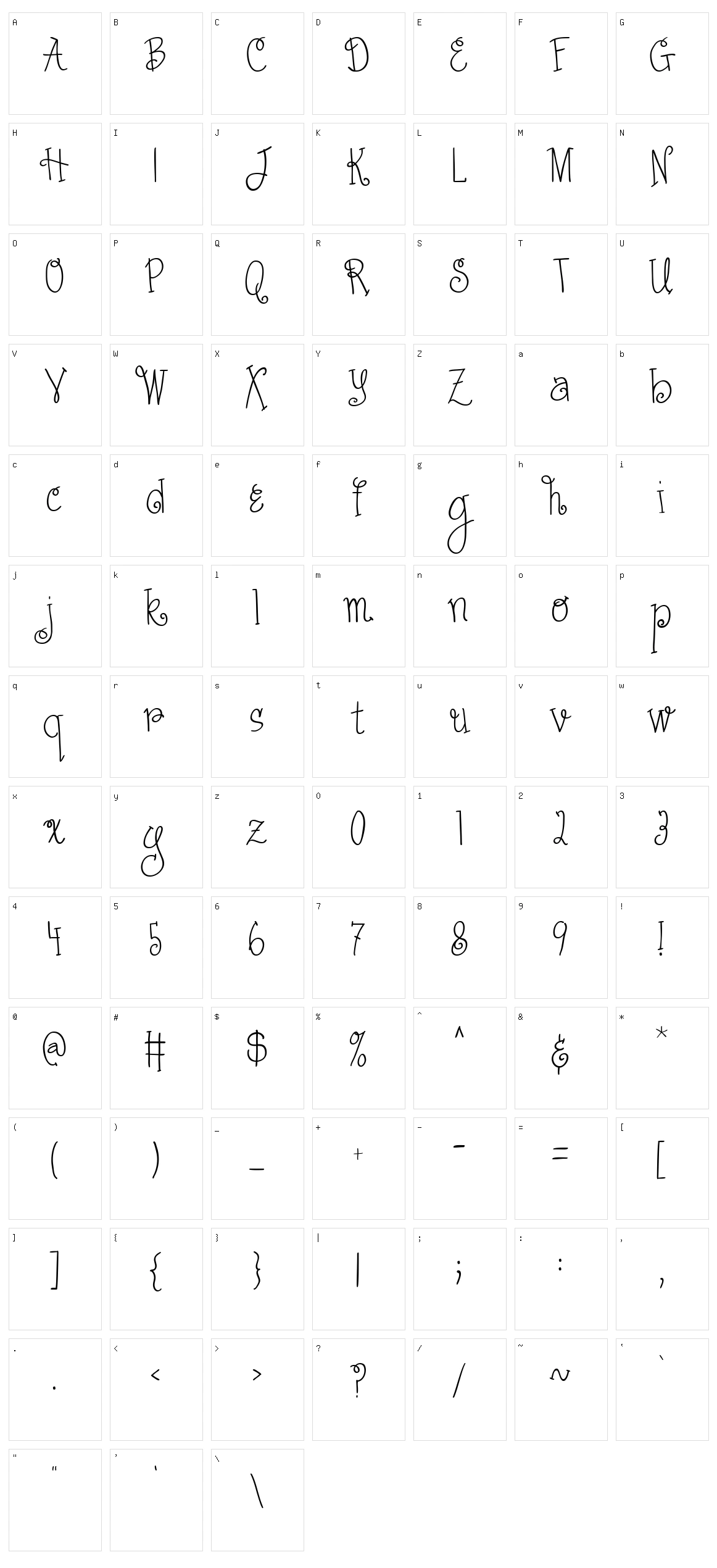
Austie Bost Somersaults
Description: Austie Bost Somersaults is a Sister Font to Austie Bost Cartwheels... Basically, it has less detail, so for those folks who don't have high-powered systems, they can use THIS font instead!